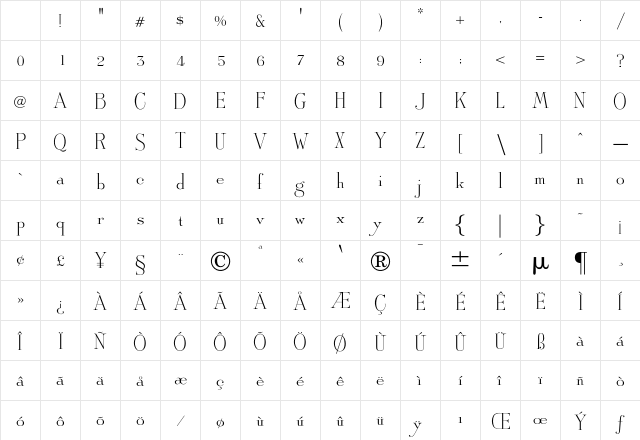
Complete OPTIAmadeus Solid glyph index. Displaying only characters natively supported by OPTIAmadeus Solid font.
OPTIAmadeus is a composed and adaptable typeface that performs quietly and consistently across a wide range of design contexts.